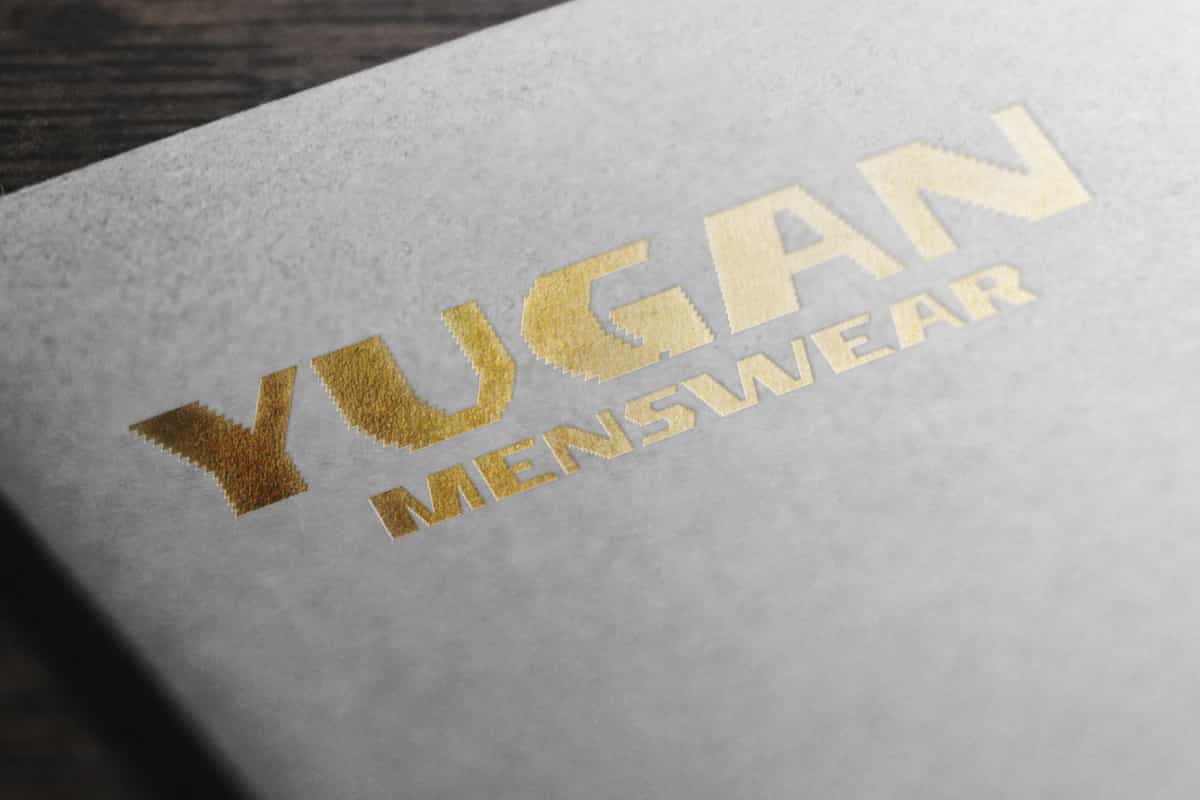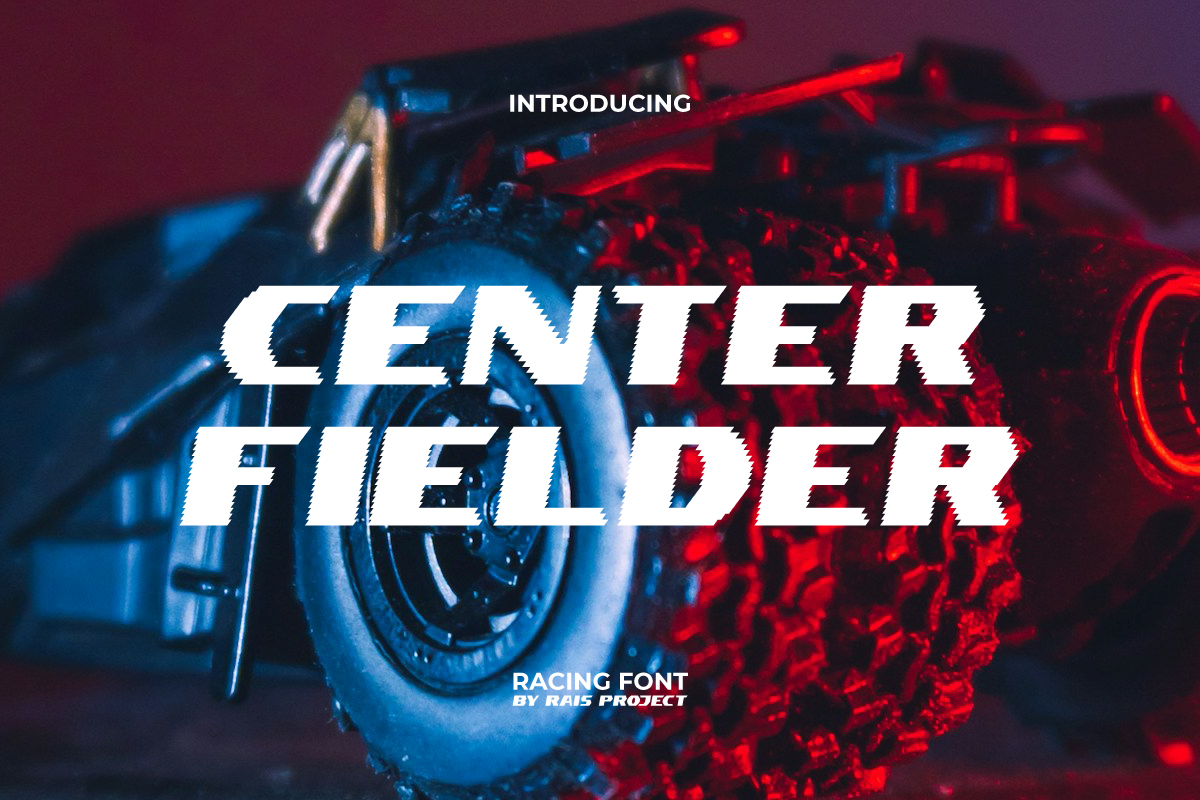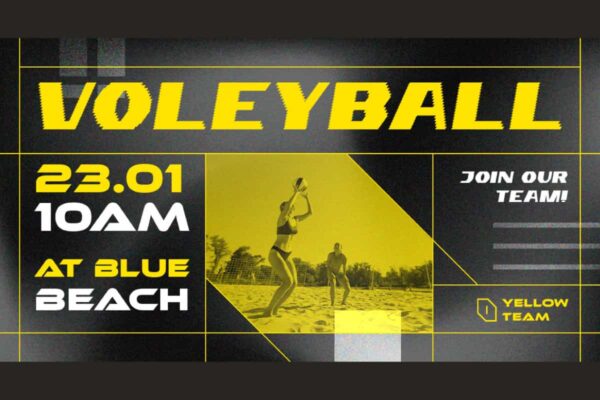
Center Fielder Font
Center Fielder Font is a techno futuristic font with a cool sporty theme. Create more amazing design using this font!
Center Fielder Font is a a techno futuristic bold font with sporty theme created by RaisProject. This font has a bold look with jagged edges making it stand out from the rest. It will be good for any design, such as poster, custom design, signage, stationery, product packaging, quotes, brand image, advertisement, invitation, label, marketing material, website page, and more!
Center Fielder Font includes a full set of ALL CAPS for Uppercase and Lowercase Letters, Numerals, and large range of Punctuation. This modern font will be suitable for various industries, such as sports, automotive, fashion, game, barber shop, cafe, event or festival, photography, printing, publishing, etc.